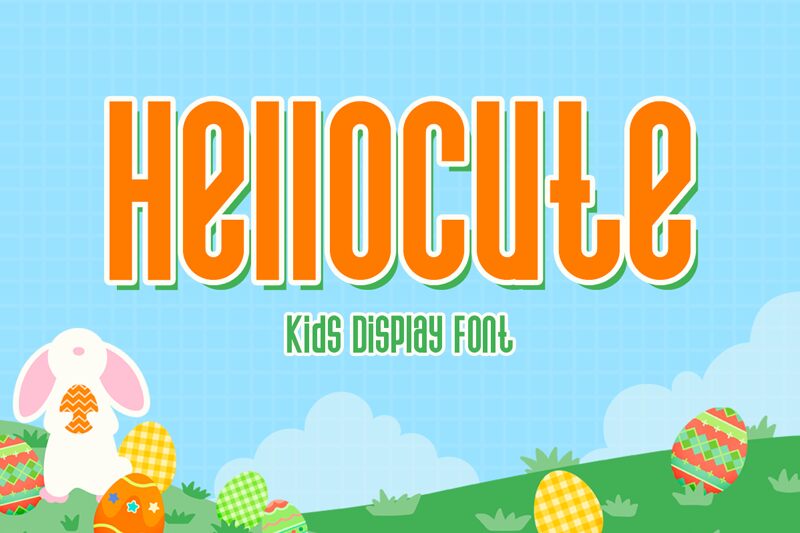
Hellocute
Hellocute emerges from the imaginative realm of Kong Font, bringing a playful charm to the world of display typography. This cartoon-style typeface, with its semi-light weight and ultra-condensed width, offers a whimsical twist that is sure to inject personality into your creative endeavors. Tailored for designers who dare to stand out, Hellocute's endearing quirks make it an impeccable choice for projects requiring a touch of joy and lightheartedness.
Embraced by those seeking to infuse their work with a sense of fun, this font dances off the page and screen alike. It’s not just about looks; Hellocute brings functional versatility to the table as well. Whether you're crafting birthday invitations, children's book covers, or whimsical branding elements – Hellocute adapts with effortless flair.